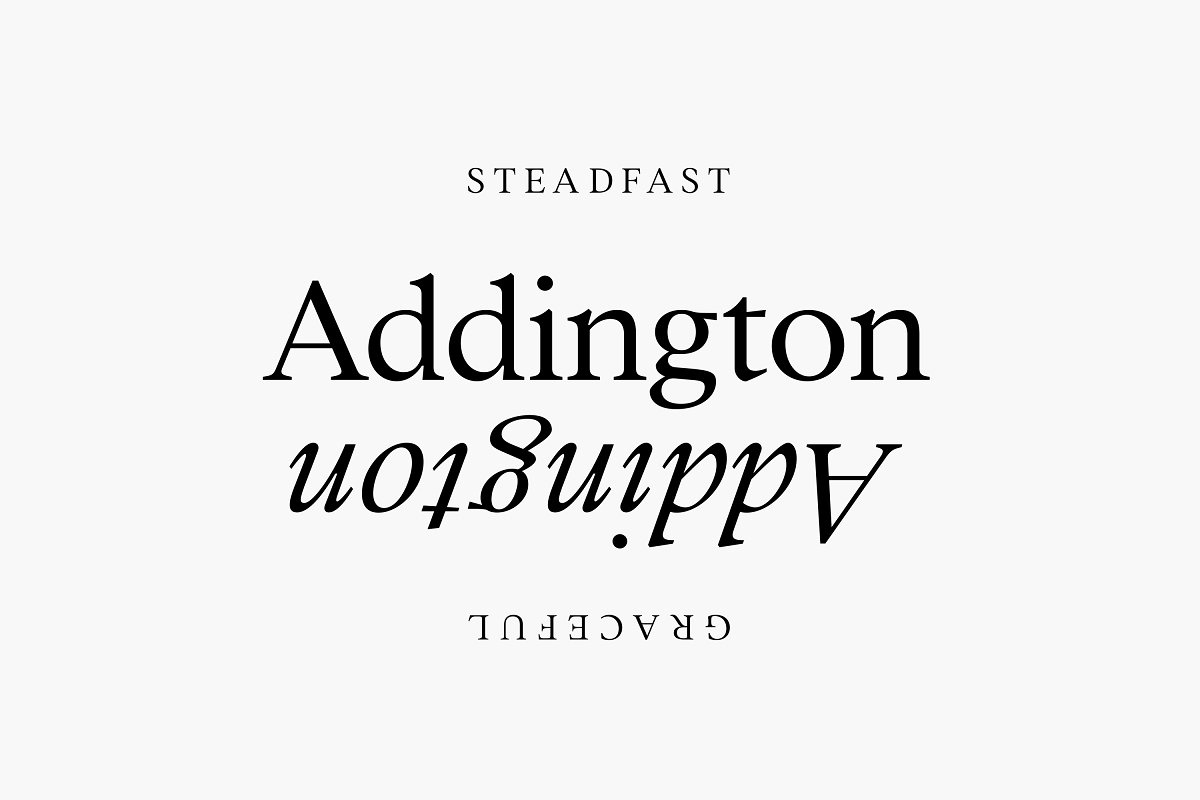
Addington CF v1.7 Font
Addington CF v1.7 Font is perfect for refined corporate branding, professional law firm communications, prestigious financial services marketing, elegant institutional presentations, distinguished academic materials, upscale consulting firm identities, sophisticated business documentation, and established professional service companies.
What makes Addington CF v1.7 Font exciting is its sophisticatedly refined character that embodies institutional authority and professional excellence through meticulously crafted letterforms that reflect generations of trusted expertise and established credibility. The font features classical proportions with contemporary refinements that create the perfect balance between traditional respectability and modern professionalism. Its distinguished aesthetic and institutional appeal make it perfect for organizations that want to communicate established authority, professional competence, and the kind of institutional trust that comes from decades of proven excellence while creating memorable experiences that honor traditional values and contemporary innovation.
Addington CF v1.7 Font family includes comprehensive professional weights ranging from Light to Bold, typically featuring Regular, Medium, and Heavy variations with corresponding italic styles. The version 1.7 update often includes enhanced character sets, professional symbols, and refined features that provide maximum flexibility for sophisticated business applications requiring institutional gravitas and professional typography excellence.